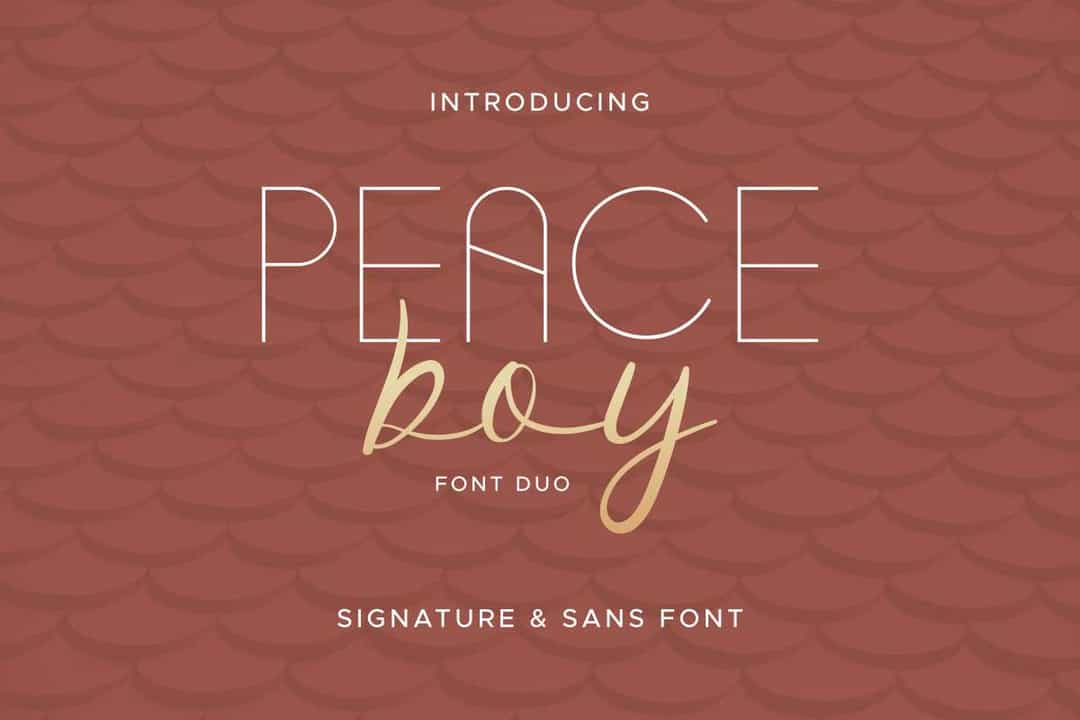
Discover Peace Boy Font Duo, part of the Sans Serif Script collection—a versatile and unique font perfect for adding a personal touch to your projects. Download it for free and enjoy crafting designs with style, from invitations to social media posts. This font is available exclusively for personal use, giving you the freedom to create without limits. Unlock your creativity with Peace Boy Font Duo today!
Peace Boy Font Duo, Elegant modern art-deco inspired sans containing lots of ligatures and a vintage style and stylish calligraphy script. It’s a great font pairing to using it in magazines, posters, blogs or logo’s as well as wedding cards. The font has lowercase caps, which means it is possible to combine the two in a variety of ways.